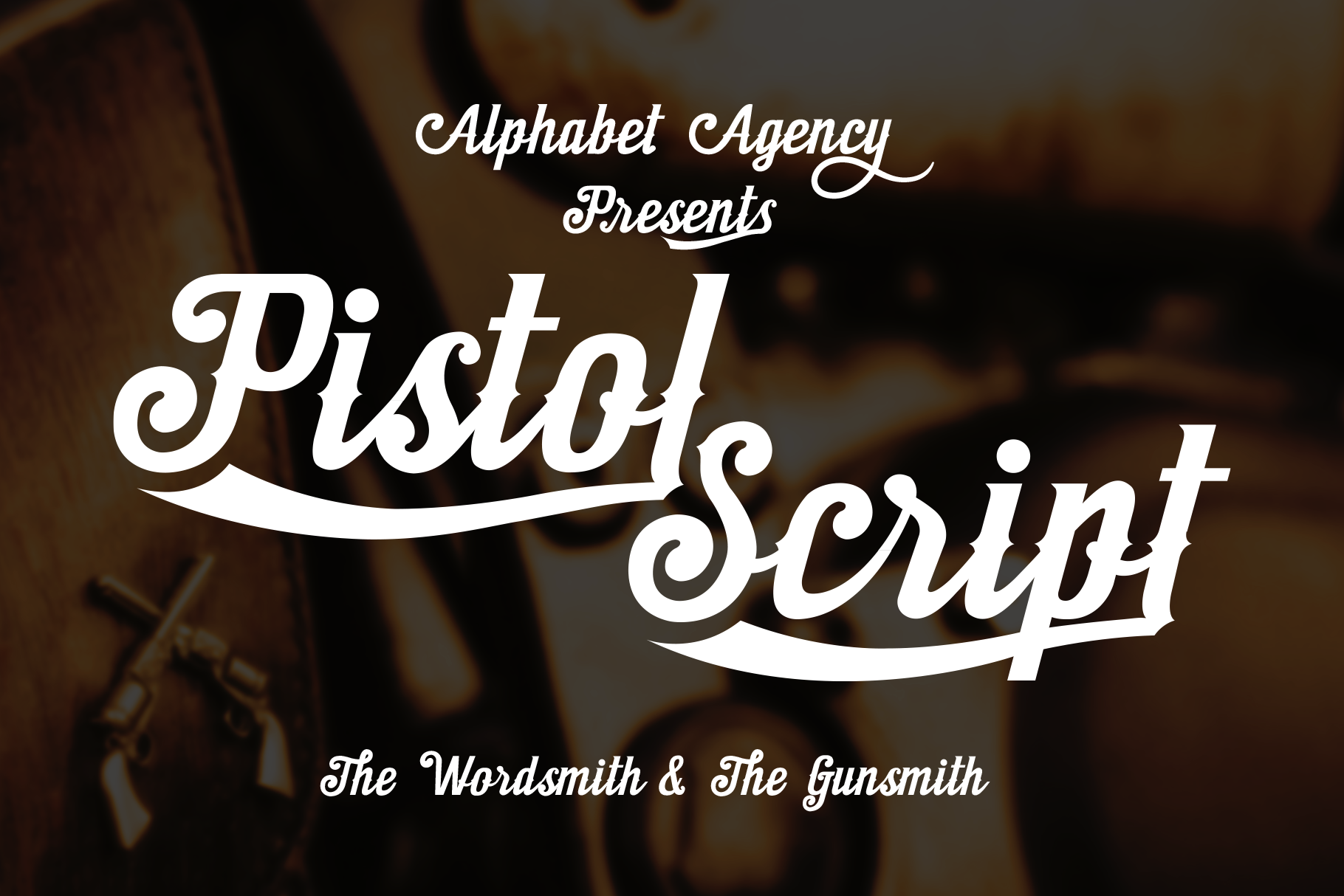
Pistol Script Font
Pistol Script is a beautiful decorative italic script font. The font is ideal for use in vintage and hipster themes. The font offers a versatile numbers of alternative characters and discretionary ligatures that provides many design options and possibilities.
The font includes basic Latin characters; uppercase, lowercase, numbers, punctuation, international Latin characters, many alternative characters and discretionary ligatures (over 250 characters)